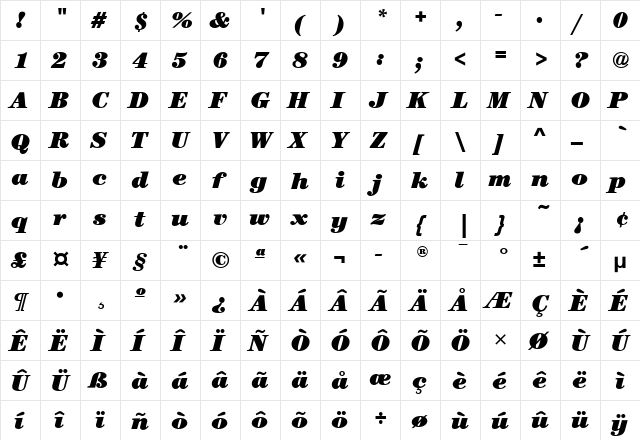
CenturyBookITC Ultra Italic
Design Context for CenturyBookITC Typeface
CenturyBookITC takes a measured approach to typography — its balanced proportions and neutral character make it a reliable workhorse for both digital and print work. The slanted form adds forward momentum and visual energy.
Pro Tip: Use CenturyBookITC for emphasis, pull quotes, and subheadings where its slanted energy can add rhythm to the layout.